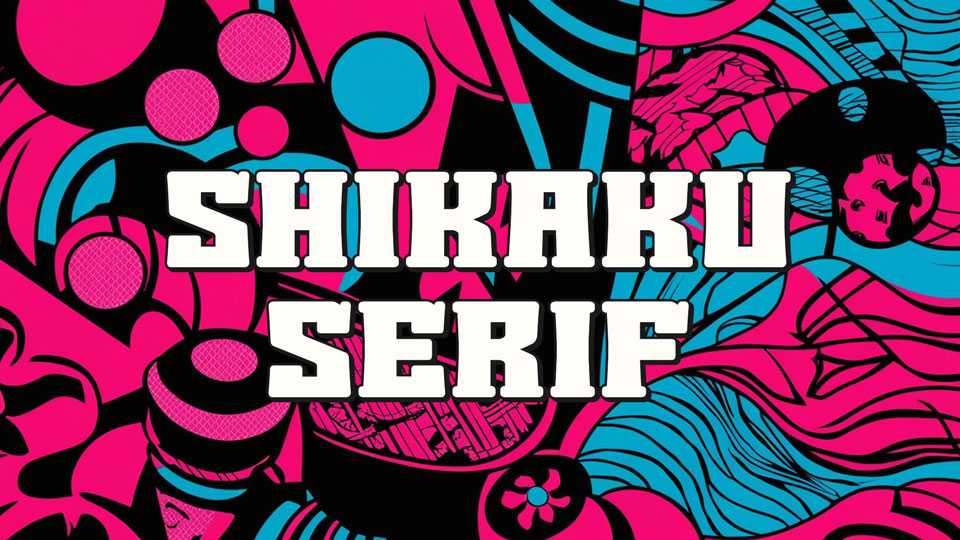
Download Shikaku Serif font, a bold and blocky serif typeface that merges strong, traditional serif structures with subtle Eastern influences.
Designer: Goma Shin